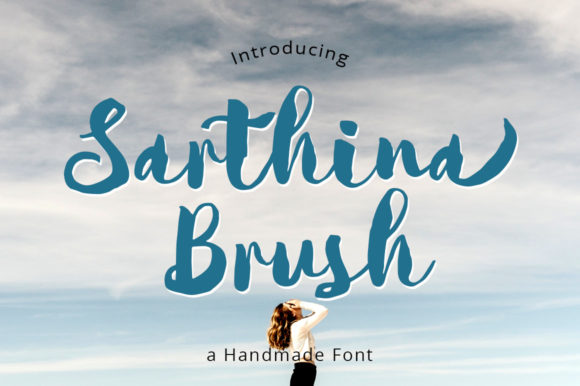
Behold, the breathtaking Sarthina Script Font, a testament to elegance and class, designed for those who yearn for a touch of sophistication in their designs. This remarkable script font, crafted with meticulous care by the skilled artisans at Stipline Studios, is an ode to timeless beauty and modern creativity. Sarthina beckons you to embark on a journey of artistic expression, transforming your designs into captivating masterpieces.
Step into a realm of enchantment, where words dance with grace and leave an indelible mark on the hearts of your readers. Sarthina's meticulously drawn characters possess an inherent charm that captivates and entrances. Each letterform is a testament to the artistry that goes into each creation, evoking a sense of wonder and awe. Indulge in the exquisite details, the flowing curves, and the delicate flourishes that make Sarthina a true delight for the eyes.
Discover endless possibilities with Sarthina, a font that seamlessly blends traditional elegance with contemporary flair. Whether you're designing wedding invitations, creating logos, or crafting social media posts, Sarthina effortlessly elevates your designs, adding a touch of refinement and sophistication that sets them apart from the ordinary. With Sarthina at your disposal, your designs will radiate an aura of timeless elegance, leaving a lasting impression on your audience.
Unleash your creativity and let Sarthina guide you through a world of design possibilities. Experience the joy of effortless artistic expression as you witness your ideas come to life in a stunning new light. Embrace the magic of Sarthina and unlock the true potential of your design endeavors.